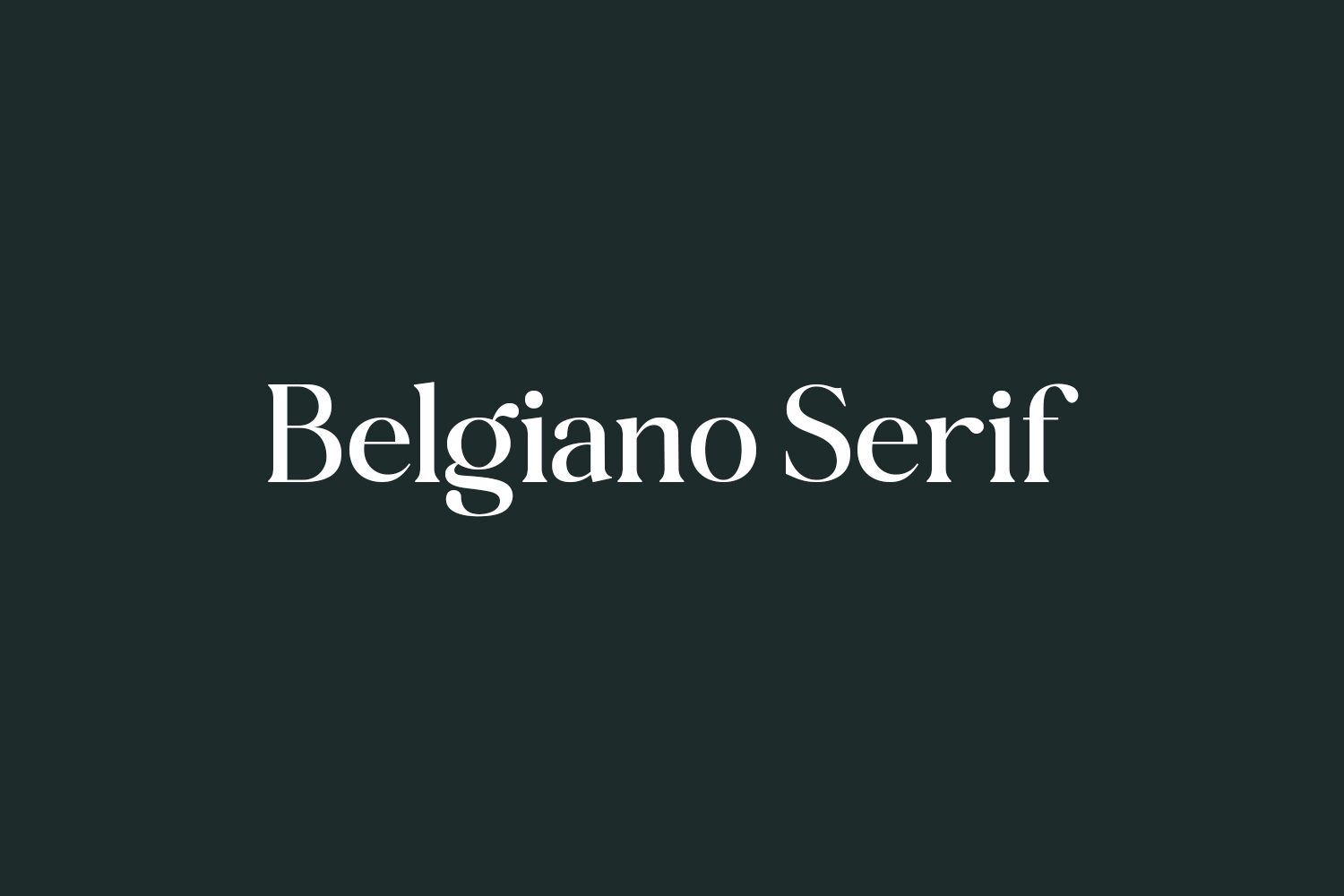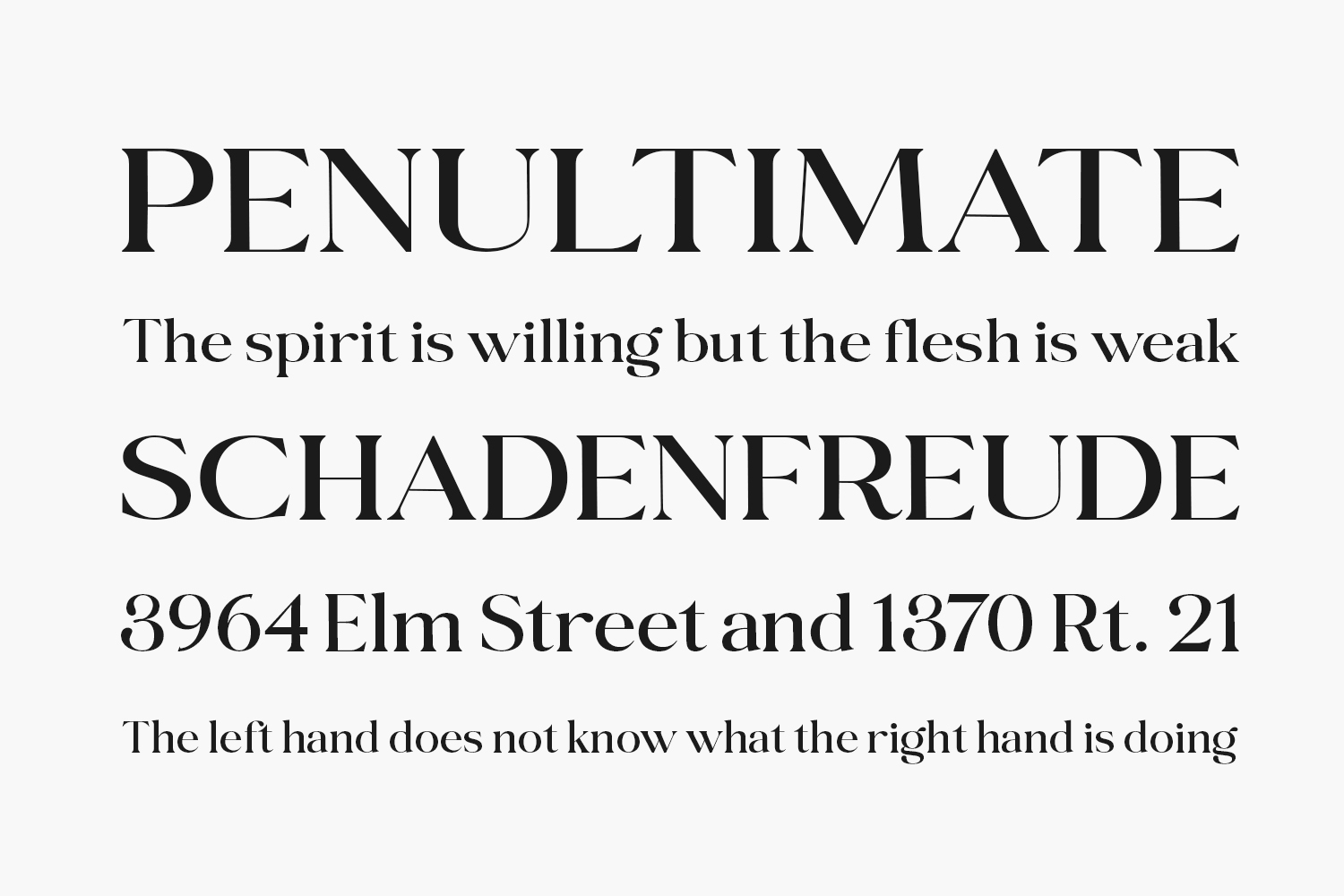
Discover Belgiano Serif Free Font – a sophisticated and contemporary serif font that exudes elegance. Infuse your projects with confidence by incorporating “Belgiano” into your creative endeavors. Whether you’re working on branding, invitations, editorial designs, or any other project, this font is sure to impress and deliver outstanding results.
Embrace the versatility of “Belgiano” and witness how it elevates your designs to new heights. Fall in love with the exceptional outcomes achieved by this font. Don’t hesitate – grab “Belgiano” now and unlock the full potential of your design projects. Belgiano Serif Free Font is free for personal use only. Please purchase the full version for commercial use.
Designed by Fajarisha Phonna